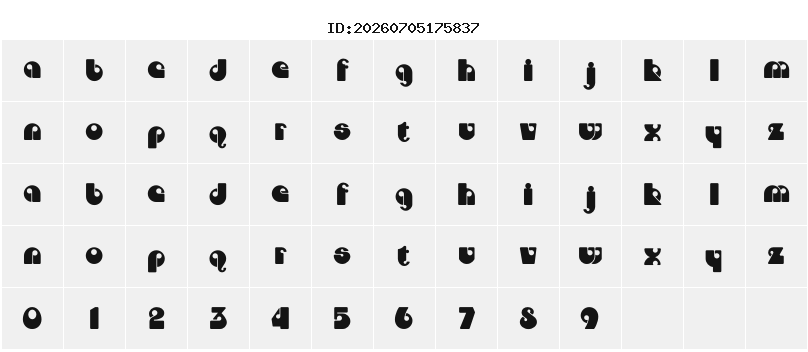
• Font Name: DojoCP
• Full Font Name: DojoCP
About DojoCP.otf
DojoCP.otf is a modern, elegant sans-serif font designed for ultimate readability and visual harmony. Perfect for branding, headlines, web design, and print materials.